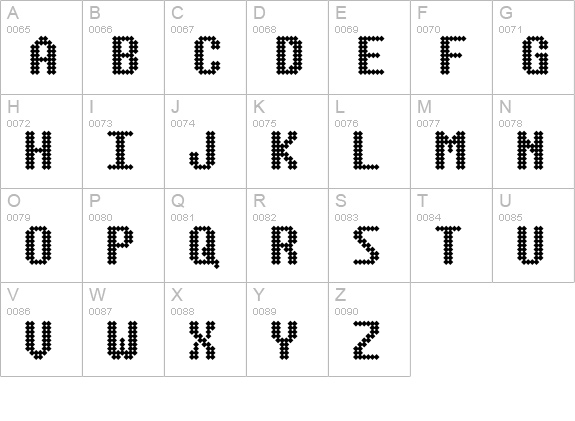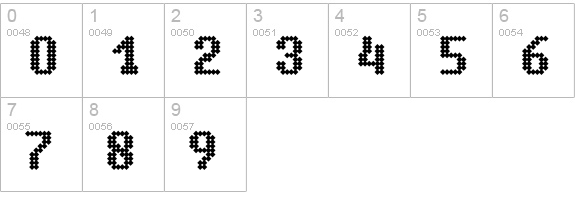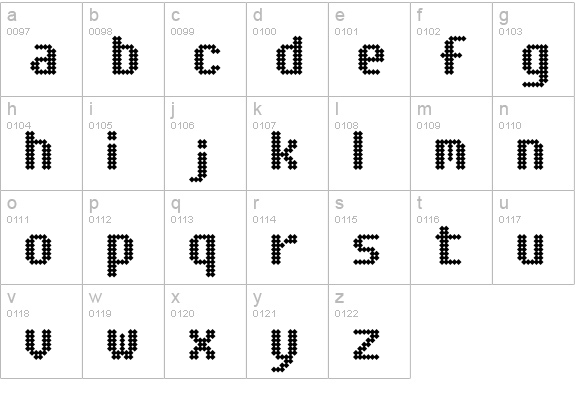
Simpleton BRK Font Details
Simpleton BRK is a charming and versatile font that exudes a playful and friendly appeal. Its bold and rounded letters make it perfect for a variety of designs, from posters to logos to social media graphics. This font is ideal for adding a touch of whimsy to your projects while maintaining readability and professionalism. What's even better is that Simpleton BRK is available for free download at FontsMarket.com. This means you can easily access and use this delightful font in your creative endeavors without any cost. So why wait? Give your designs a fresh and fun look with Simpleton BRK today!